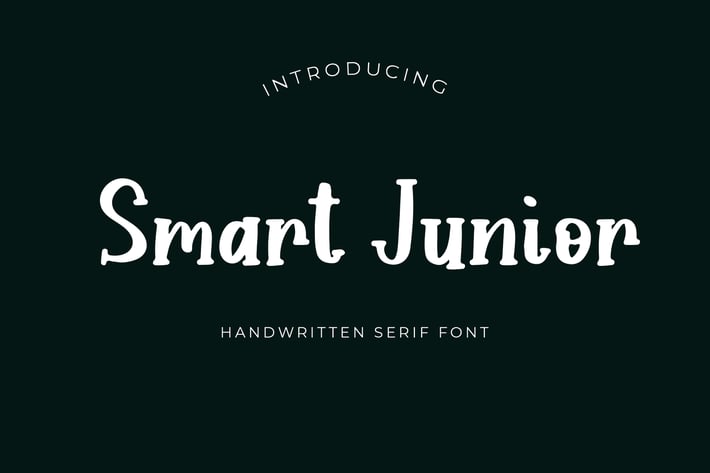
Smart Junior Handwritten Serif Font
Smart Junior is vintage and extraordinary handwritten serif font that will make any vintage theme design stand out!
Smart Junior Handwritten Serif Font is perfect for branding projects, logo, tshirt designs, book cover design, social media posts, advertisements, product packaging, product designs, label, watermark, invitation, stationery and any projects.